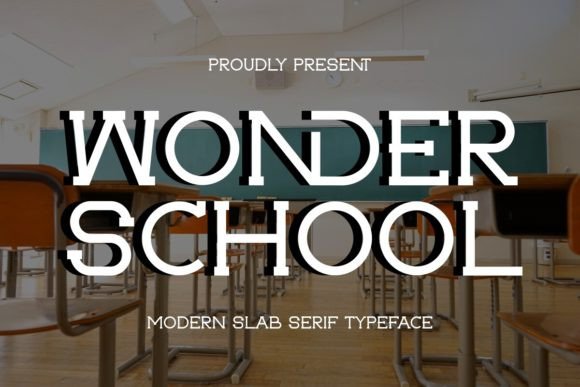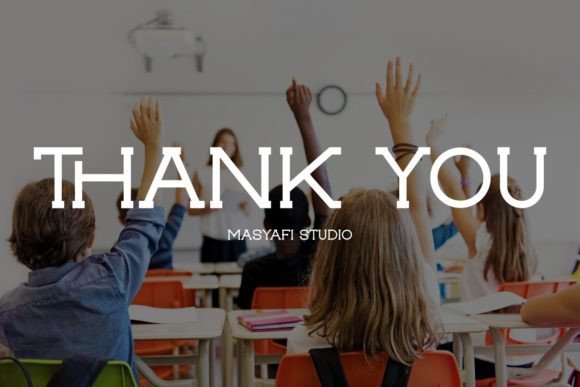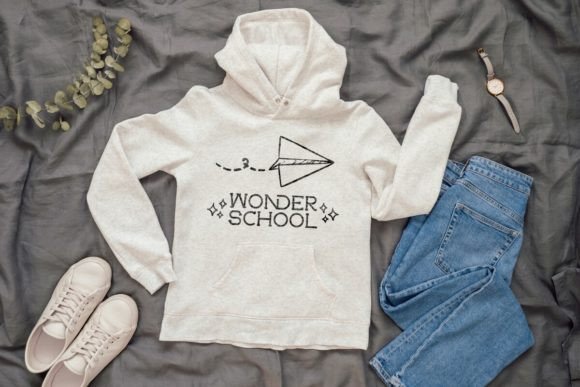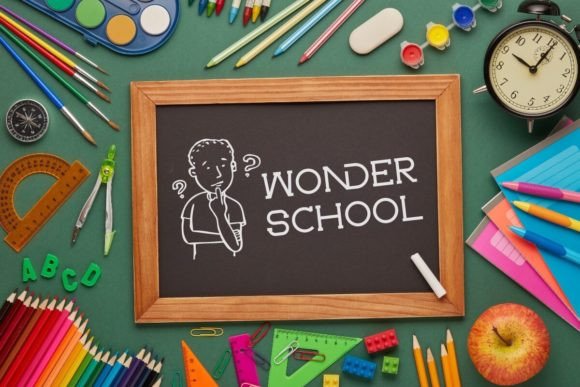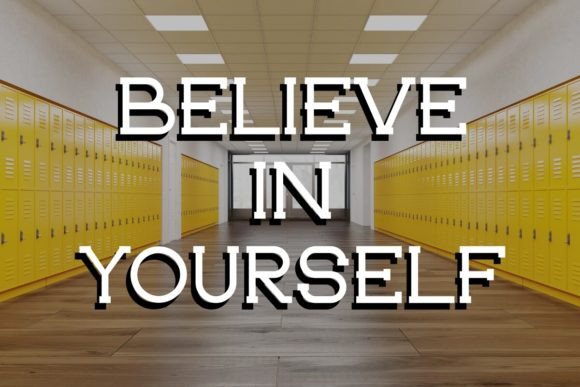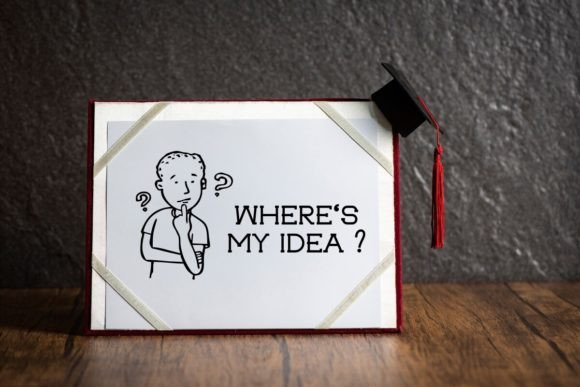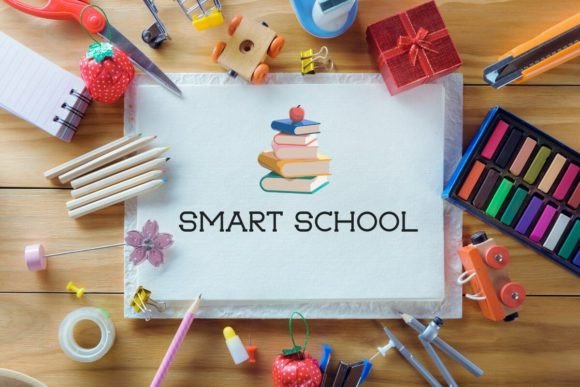
About Wonder School Font
Introducing Wonder School – Modern Slab Serif Typeface
Modern Slab Serif Typeface with a gentle, vintage, and manly style. This font is cool for quotes, headlines, overlays, tote bags, hoodies, t-shirts, mugs, etc.